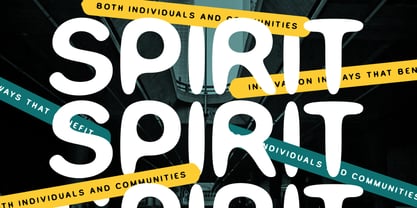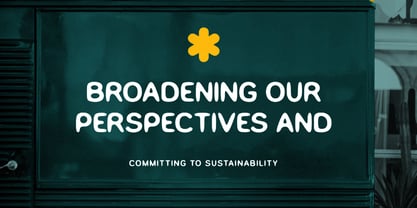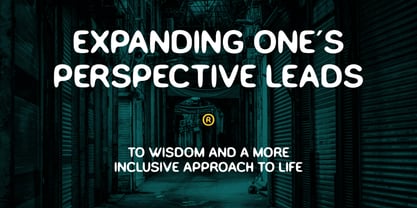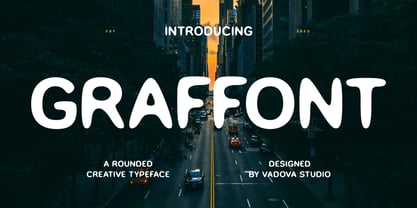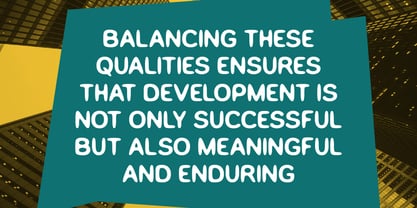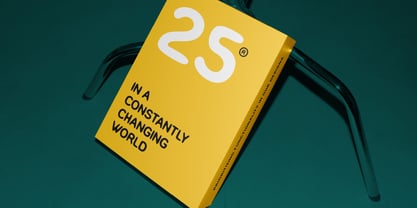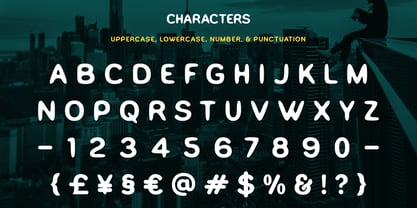
Graffont
by Vadova Std
The Graffont Font Family and published by Vadova Std. Graffont contains 1 styles. More about this family
Graffont is a bold and creative typeface that blends contemporary aesthetics with expressive urban flair. With a slightly rounded, all-caps structure and high legibility, this font is built to make statements. Whether used in educational campaigns, urban posters, startup branding, or design portfolios, Graffont adds personality and clarity to your visual messaging. It’s ideal for brands that seek to balance bold innovation with meaningful communication.
Foundry: Vadova Std